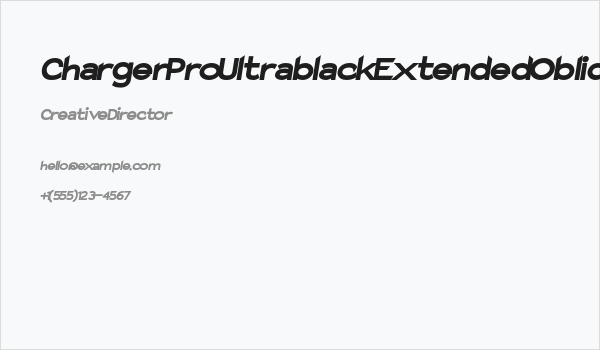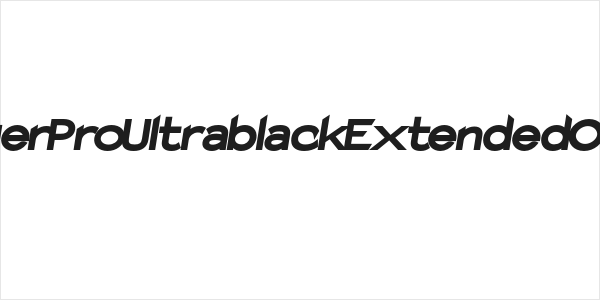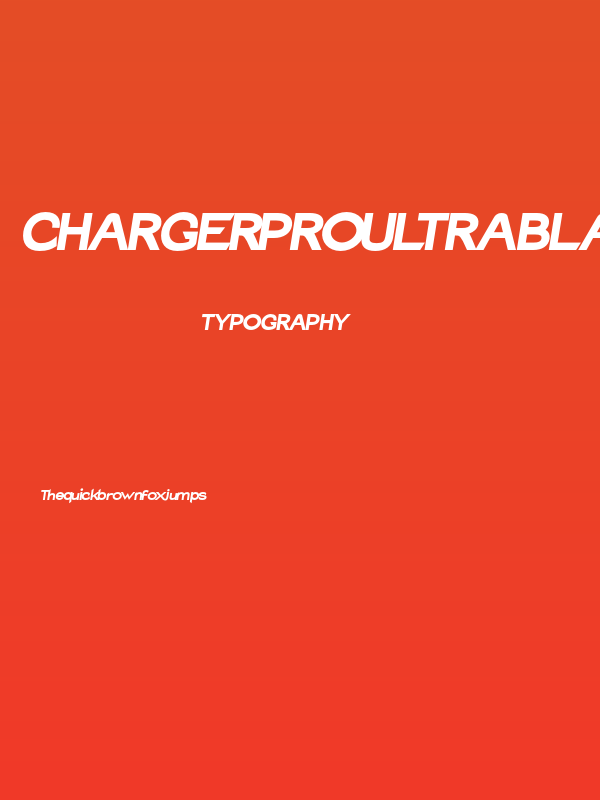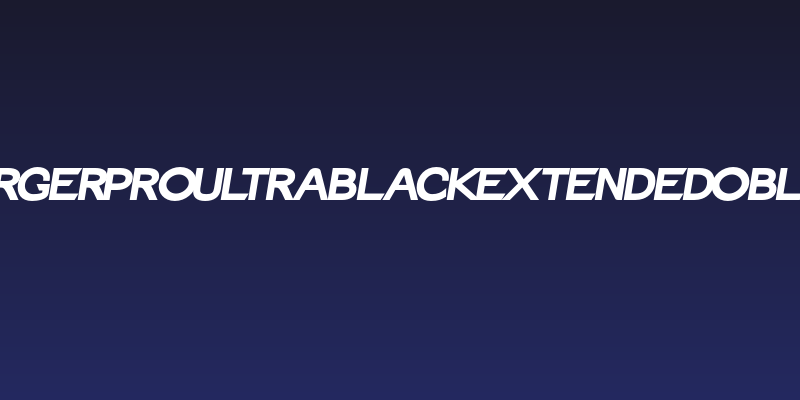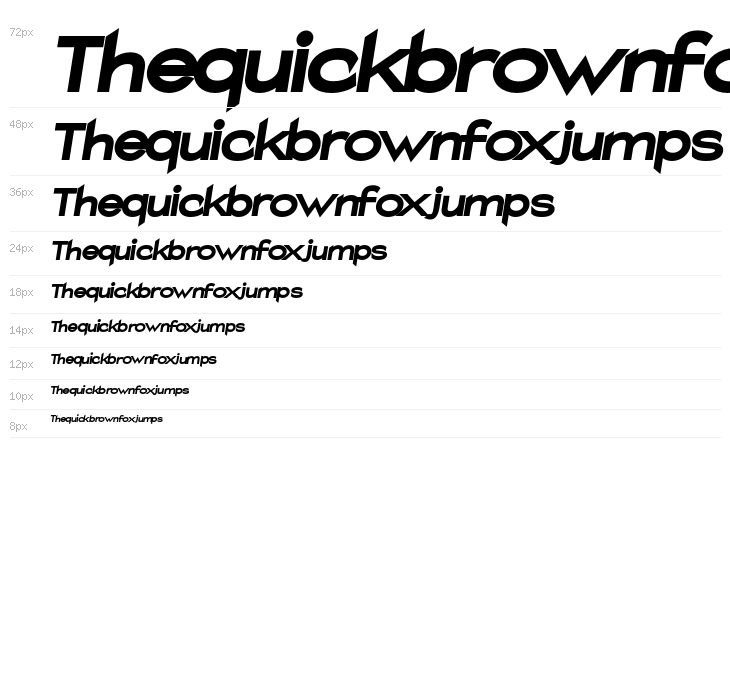
Charger Pro Ultrablack Extended Oblique Font
Charger Pro Ultrablack Extended Oblique Description
This font features a bold and dynamic design with an extended and oblique style, giving it a strong presence. The uppercase and lowercase letters are well-balanced, with a slight slant that adds a sense of motion and energy. The numerals are clear and distinct, maintaining the boldness of the overall design. Special characters are included, each crafted to match the font's robust and modern aesthetic. The font's extended width and ultrablack weight make it ideal for impactful headlines and attention-grabbing designs.
| Proposed Projects | Ideal for sports branding, dynamic posters, modern advertising, and impactful headlines. |